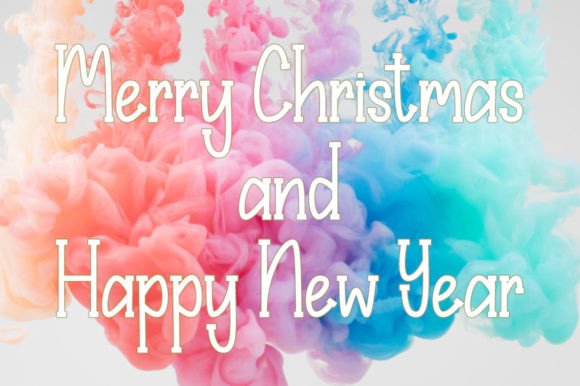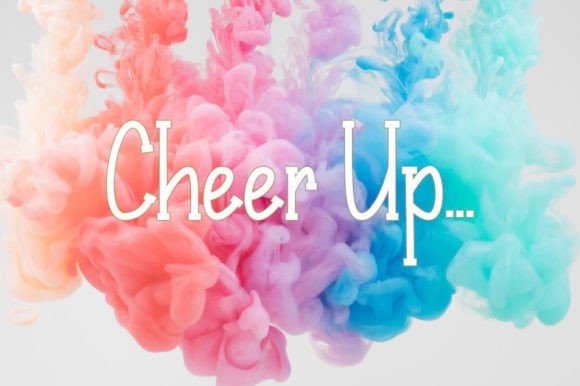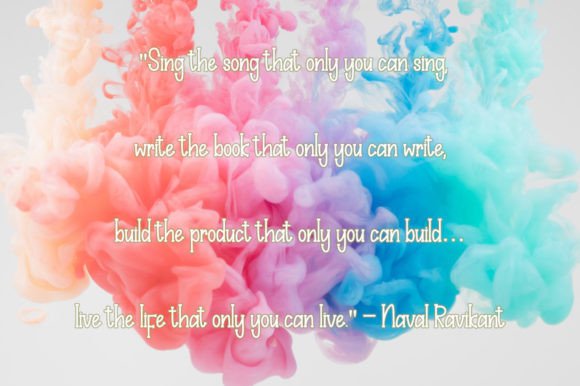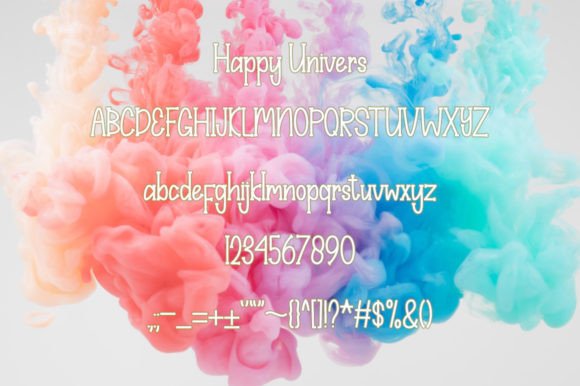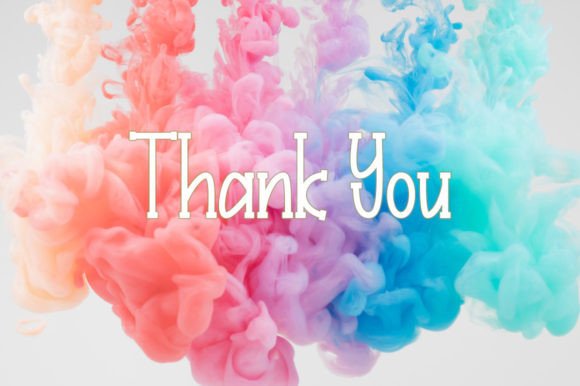
Introducing Happy Univers Font: The Perfect Choice for Creative Projects
Are you tired of using the same old fonts for your creative projects? Look no further than Happy Univers Font, a unique serif font designed to bring a touch of cheerfulness and sophistication to your designs. In this article, we’ll take a closer look at the features and benefits of Happy Univers Font, and explore how it can elevate your product packaging, branding projects, magazines, social media, weddings, and more.
The Story Behind Happy Univers Font
Happy Univers Font is a carefully crafted font, designed with love and attention to detail. The creators of Happy Univers Font aimed to create a font that would be both fun and firm, making it perfect for a wide range of applications. Whether you’re a designer, craftsperson, or simply someone looking for a unique font to express yourself, Happy Univers Font is an excellent choice.
Key Features of Happy Univers Font
So, what makes Happy Univers Font so special? Here are some of its key features:
- Unique Serif Design: Happy Univers Font boasts a distinctive serif design that sets it apart from other fonts.
- Cheerful yet Firm: The font’s design is both cheerful and firm, making it perfect for a wide range of applications.
- Highly Versatile: Happy Univers Font can be used for product packaging, branding projects, magazines, social media, weddings, and more.
Use Cases for Happy Univers Font
Happy Univers Font is an incredibly versatile font that can be used in a variety of contexts. Here are some ideas to get you started:
- Product Packaging: Add a touch of personality to your product packaging with Happy Univers Font.
- Branding Projects: Use Happy Univers Font to create a unique and memorable brand identity.
- Magazines and Publications: Happy Univers Font is perfect for magazine titles, headings, and body text.
- Social Media: Stand out on social media with Happy Univers Font, perfect for graphics, posts, and stories.
- Weddings and Events: Use Happy Univers Font to add a touch of elegance and whimsy to your wedding or event stationery.
Why Choose Happy Univers Font?
With so many fonts to choose from, why should you choose Happy Univers Font? Here are just a few reasons:
- Unique Design: Happy Univers Font is a one-of-a-kind font that will help you stand out from the crowd.
- Ease of Use: Happy Univers Font is easy to read and use, making it perfect for a wide range of applications.
- High-Quality: Happy Univers Font is a high-quality font, designed to deliver exceptional results.
In conclusion, Happy Univers Font is an exceptional font that is sure to elevate your creative projects. With its unique serif design, cheerful yet firm aesthetic, and high versatility, Happy Univers Font is perfect for designers, craftspersons, and anyone looking for a special font to express themselves. Whether you’re working on product packaging, branding projects, magazines, social media, weddings, or more, Happy Univers Font is an excellent choice.